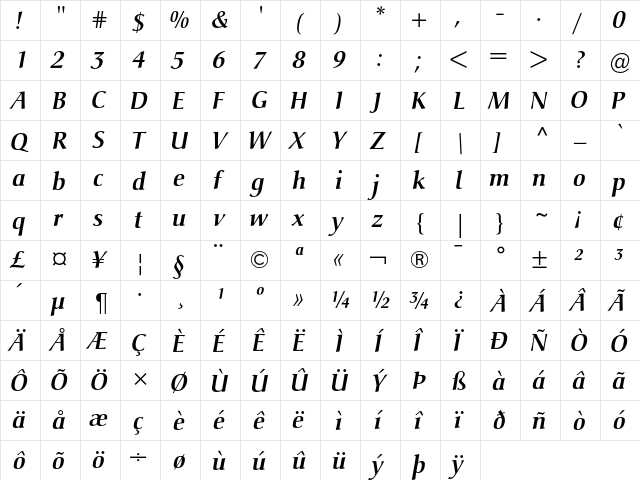
Christiana Medium Italic Font Preview
Christiana Medium Italic
Design Context for Christiana Typeface
Christiana offers clean, dependable letterforms without strong stylistic allegiance, making it a practical choice for designers who need flexibility. Its italic angle brings a sense of urgency and motion to the letterforms.
Pro Tip: Use Christiana for emphasis, pull quotes, and subheadings where its slanted energy can add rhythm to the layout.